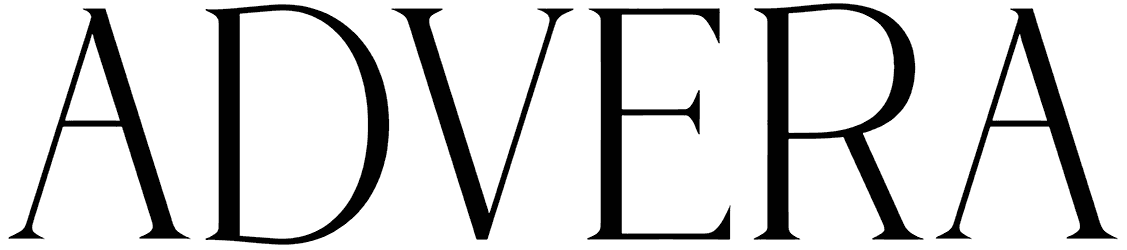
Advera Font
There’s always more elegance to bring to your texts by using a fashion font like Advera. Is it a beauty salon poster, a home décor business card, or a talent agency website that you’re working on? Then you couldn’t have been luckier.
That’s what this serif font is all about: elevating your business ideas with luxury. It’s all made of capitals so that you can convey a sense of importance and get everyone focused on your message in no time.